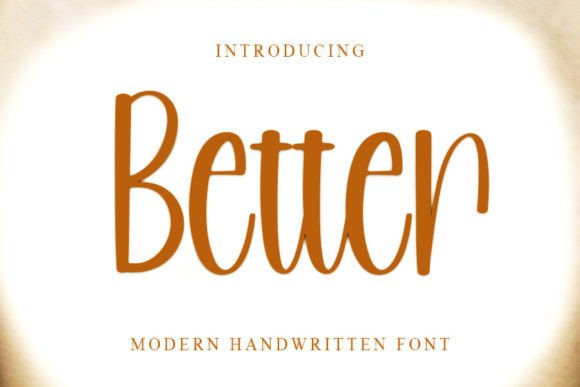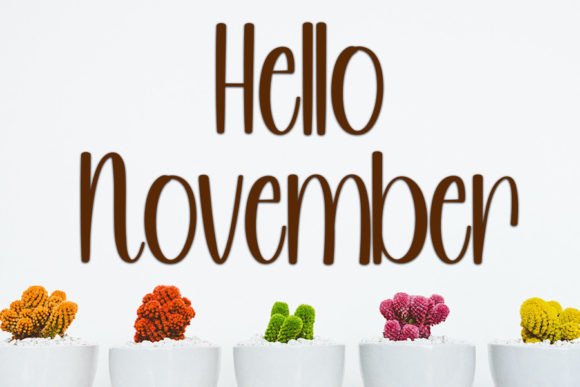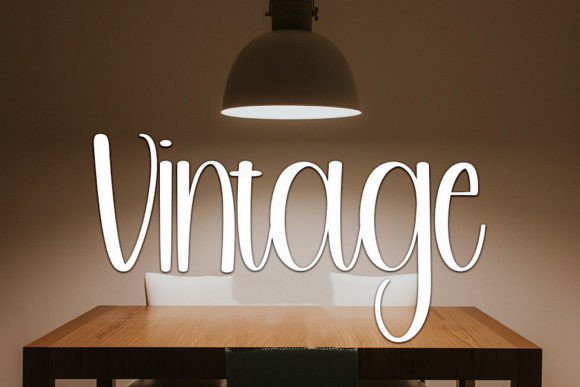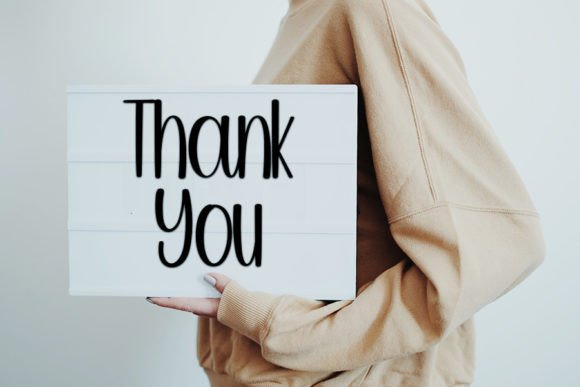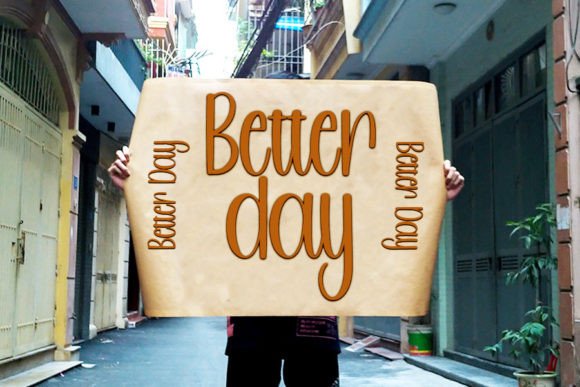
Better Font
The Better Font Download is a neat and beautiful handwritten script created to bring elegance and charm to your projects. With its graceful strokes and timeless style, this font is ideal for invitations, posters, branding, and digital design. Its clean handwritten look makes it versatile, stylish, and easy to use for professionals and hobbyists alike.
A Handwritten Script with Timeless Elegance
The Better script font blends neat handwritten curves with a modern design. As a result, it feels classy, simple, and highly adaptable. Furthermore, it works well in both small details and bold display text, making it perfect for many uses.
Personal designs feel more meaningful with handwritten typefaces. The Better Font is perfect for wedding invitations, thank you notes, birthday stationery, and seasonal greeting cards. Because of its refined flow, every card feels polished and heartfelt. In addition, its gentle style ensures messages remain clear and warm.
Branding and Logo Design with Better Font
Typography plays a vital role in brand storytelling. The Better handwritten font is an excellent option for boutique logos, product packaging, and promotional campaigns. Its elegant strokes project a professional yet approachable brand image. Therefore, it is a great choice for businesses that want both creativity and clarity.
Posters, Titles, and Editorial Displays
The Better Font Download adapts seamlessly to posters, banners, book covers, and magazine layouts. It maintains readability across sizes while adding visual elegance. Consequently, it is a go-to font for designers seeking beauty and legibility.
In the digital world, fonts must be stylish while staying functional. The Better typeface integrates perfectly into Instagram posts, YouTube thumbnails, Pinterest graphics, and blogs. Because of its handwritten charm, it ensures that online designs look attractive and modern.
Why Designers Choose Better Typeface
Designers value fonts that balance elegance with practicality. The Better handwritten script keeps its distinct beauty while remaining easy to read, even in smaller text. This makes it a dependable choice for a wide variety of creative projects. Moreover, its timeless design ensures long-lasting appeal.
Add Elegant Charm to Your Projects Today
If you are looking for a handwritten script that feels neat, elegant, and versatile, the Better Font Download is the right choice. From invitations and greeting cards to posters, logos, and digital content, it enhances every design with refined beauty. Finally, download Better today and let your projects shine with timeless handwritten style.